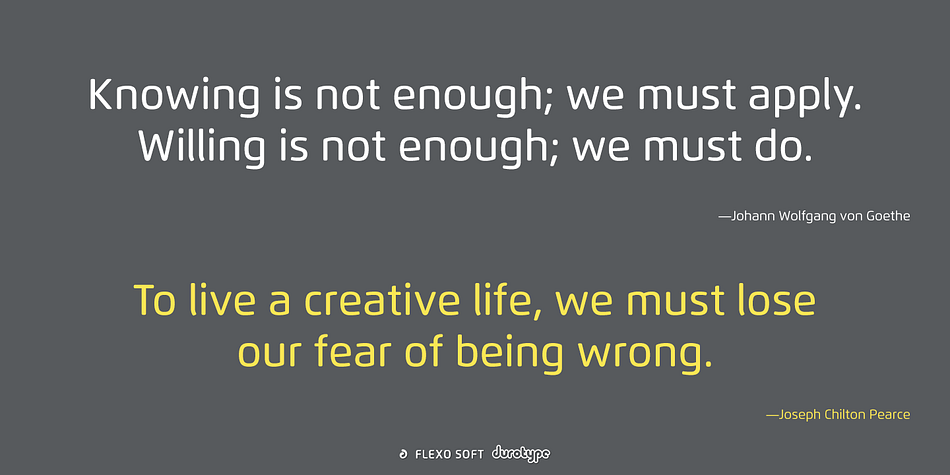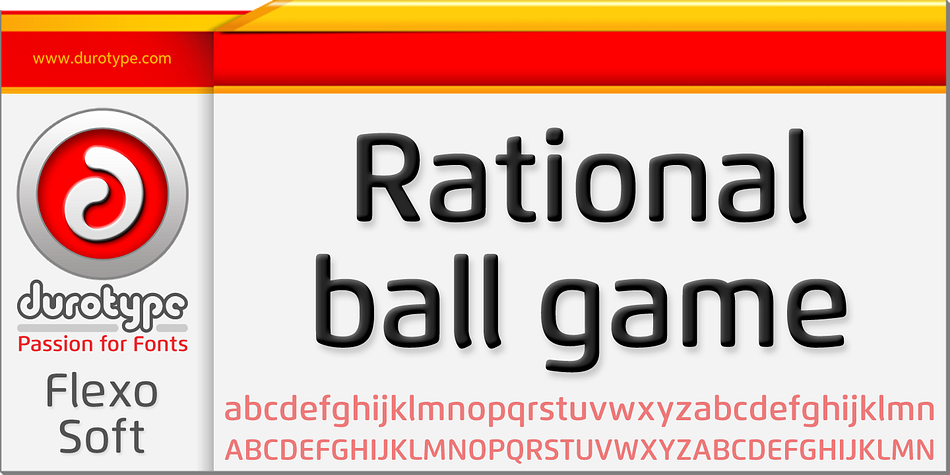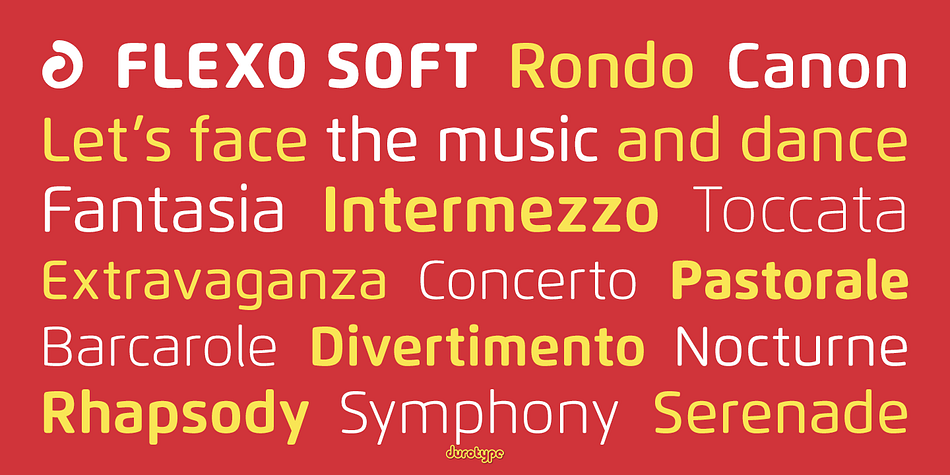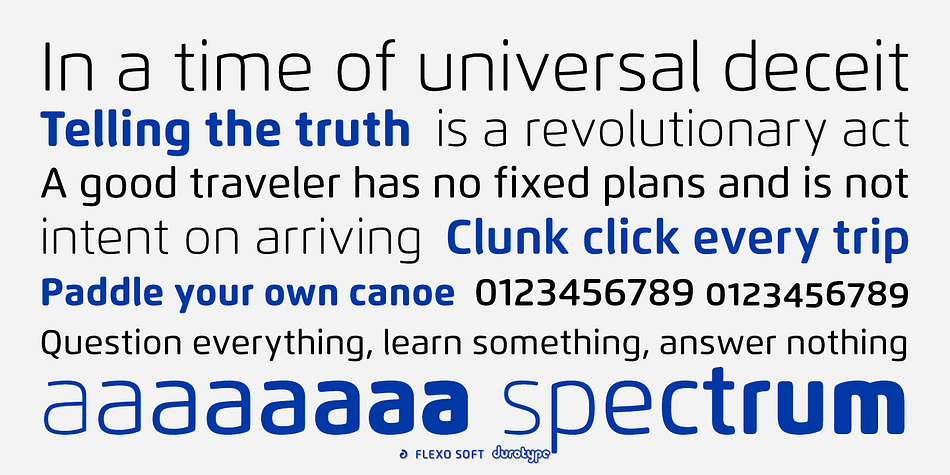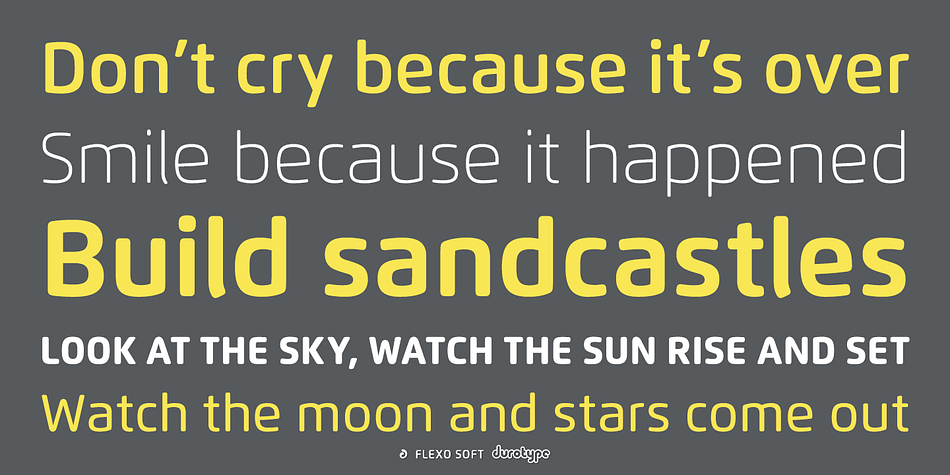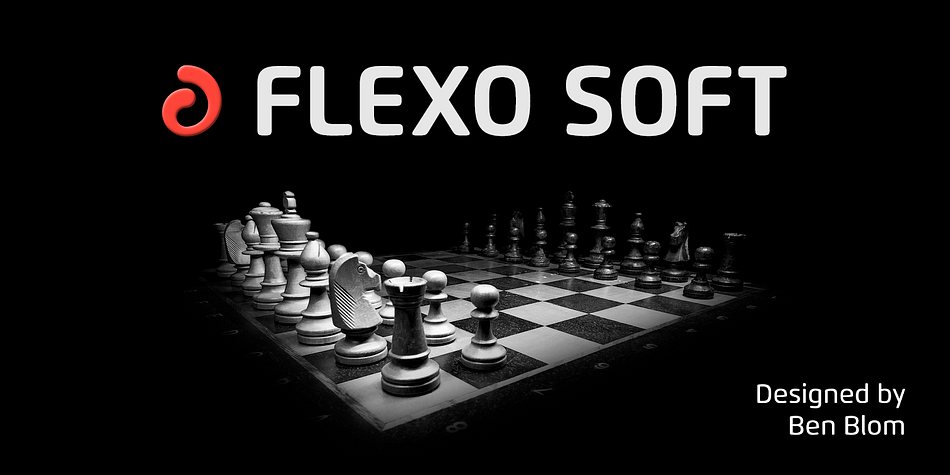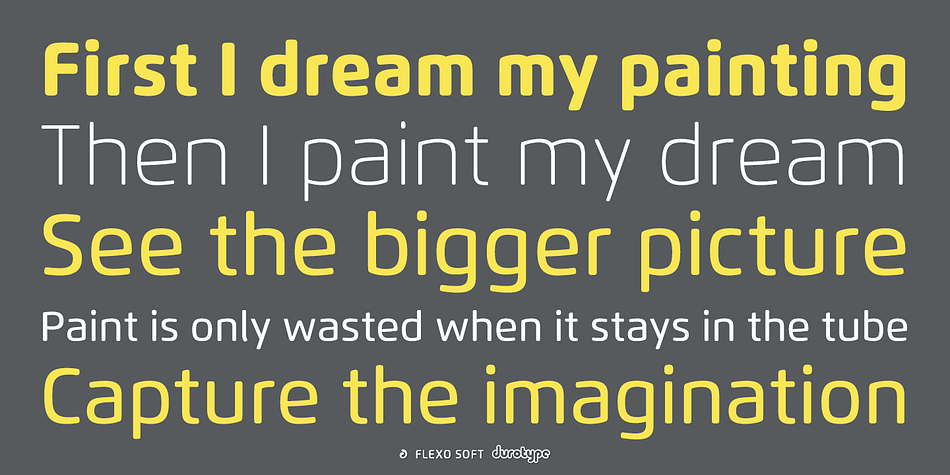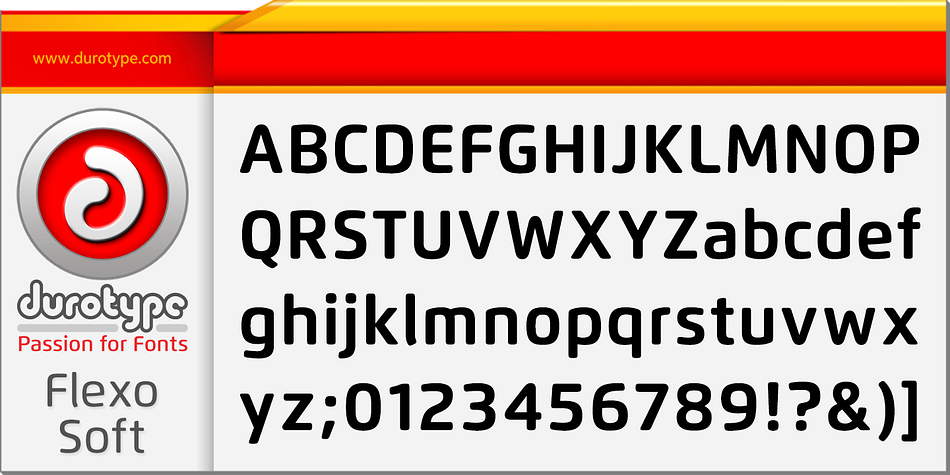
Designed by Ben Blom, Flexo Soft is a sans serif font family. This typeface has sixteen styles and was published by Durotype.
Flexo Soft is the soft companion of Flexo. In Flexo Soft, the sharp edges of Flexo’s characters have been tempered by a moderate rounding—creating a softer and friendlier typeface.
Flexo Soft has a squarish design, making it stand out in many uses. It will shine in both headlines and text. It is well suited for graphic design and corporate identity design. Flexo Soft has sixteen styles, extensive language support, eight different kinds of figures, sophisticated OpenType features—so it’s ready for advanced typographic projects.
Foundry | Durotype |
Designer | Ben Blom |